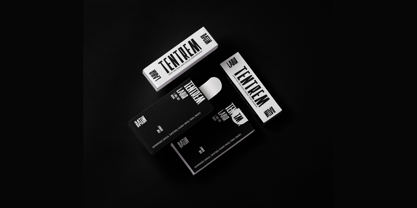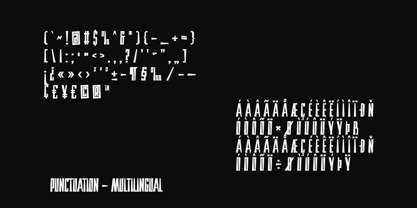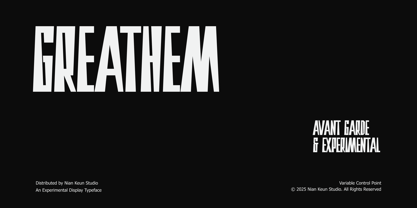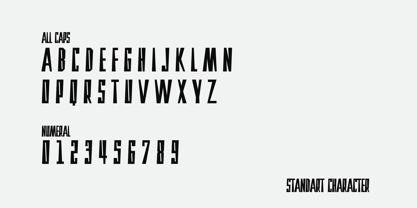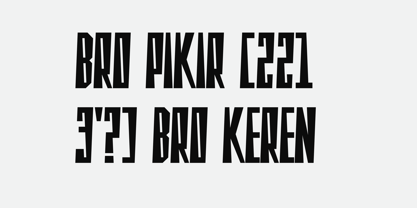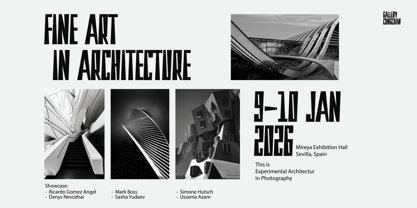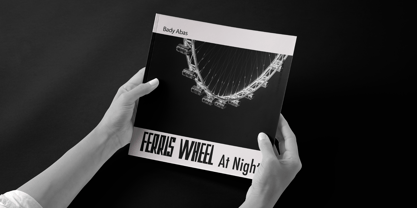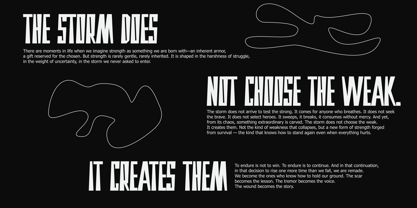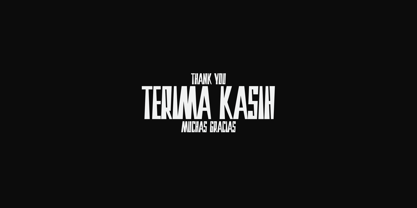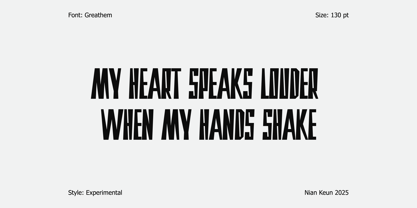
Greathem
by Nian Keun Studio
The Greathem Font Family was designed by Mugi Raharjo and published by Nian Keun Studio. Greathem contains 1 styles. More about this family
Greathem is a bold experimental display typeface that pushes visual proportions beyond convention. With extreme vertical tension, sharp geometry, and an assertive stance, this font is made to dominate headlines and command attention instantly. Designed for projects that thrive on unconventional aesthetics, Greathem carries the energy of underground posters, fashion lookbooks, cultural exhibitions, and avant-garde brand identities. The tall, stretched forms emphasize drama, scale, and modern brutalism, making every word feel like a statement. Greathem is not a font that blends in — it performs. Perfect For * Editorial & Magazine Headlines * Experimental Visual Branding * Music / Festival / Gig Posters * Fashion Campaigns * Art & Culture Exhibitions * Bold Website Hero Titles * Graphic Posters & Print Design Features * Display Typeface with Extreme Vertical Forms * Sharp Angular Construction * High Visual Impact * Best at Large Sizes * Variable Control Point for style adjustment
Designers: Mugi Raharjo
Foundry: Nian Keun Studio